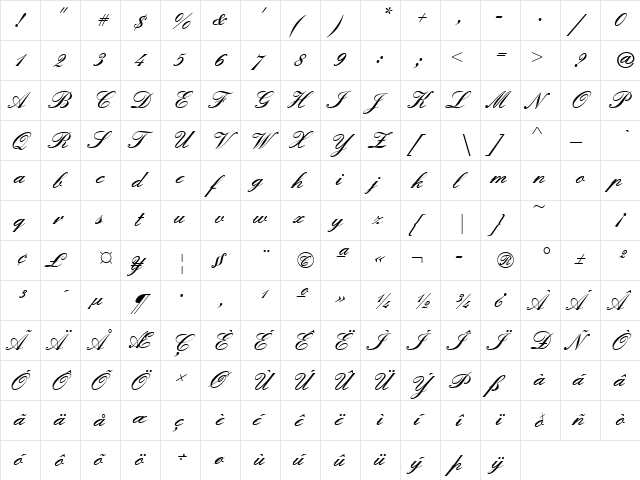
EnglischeSchJoiTDemBol Regular
EnglischeSchJoiTDemBol is a composed and adaptable typeface that performs quietly and consistently across a wide range of design contexts.